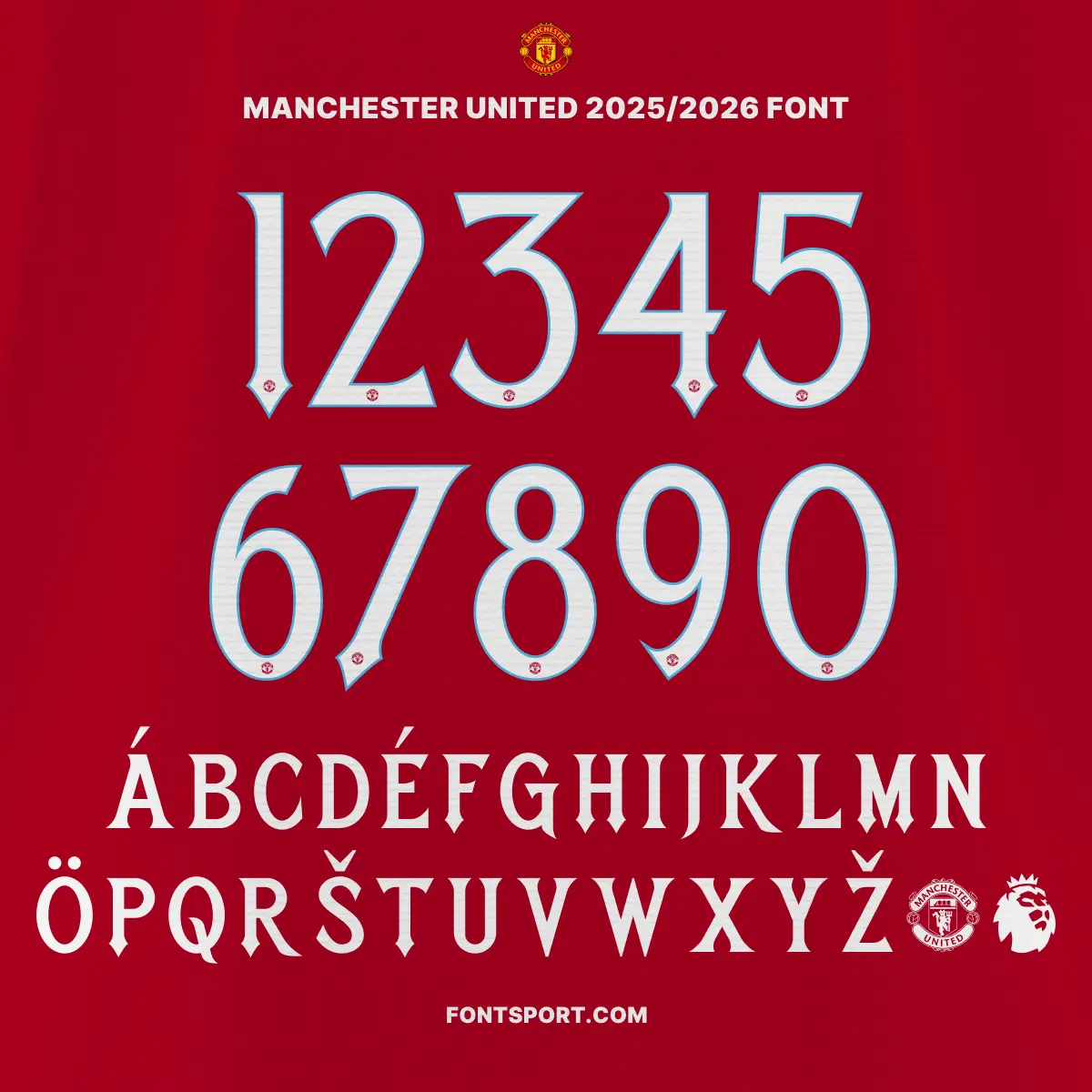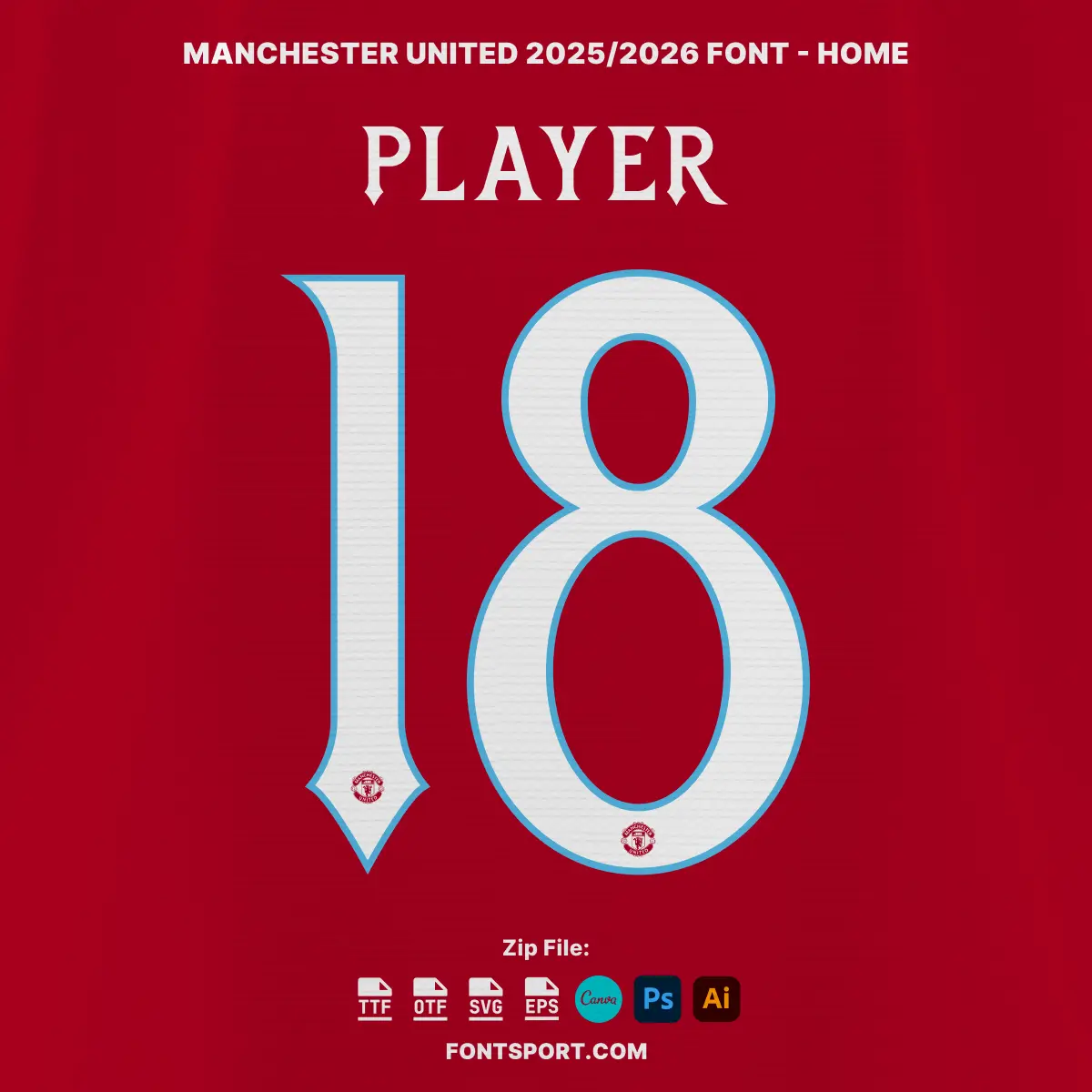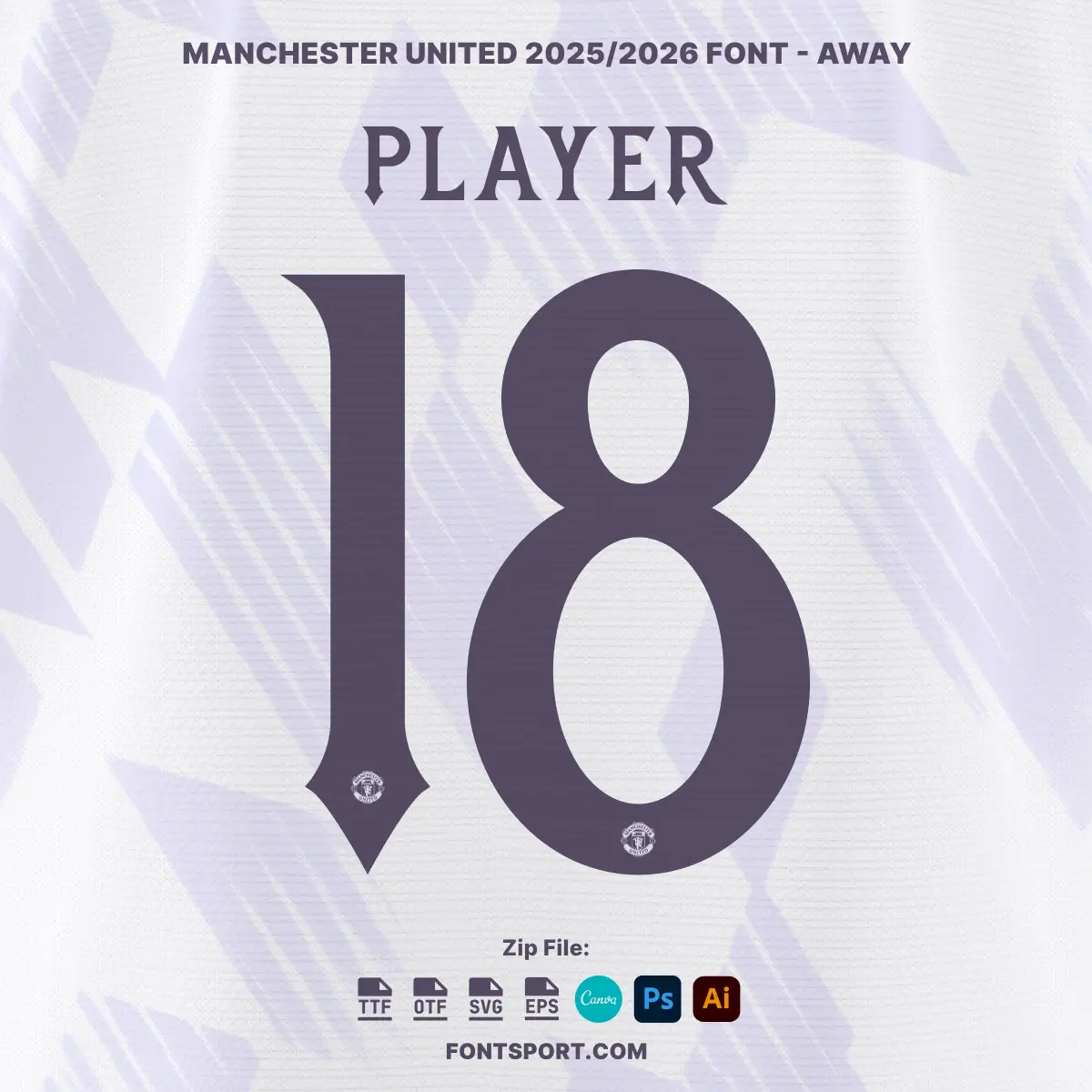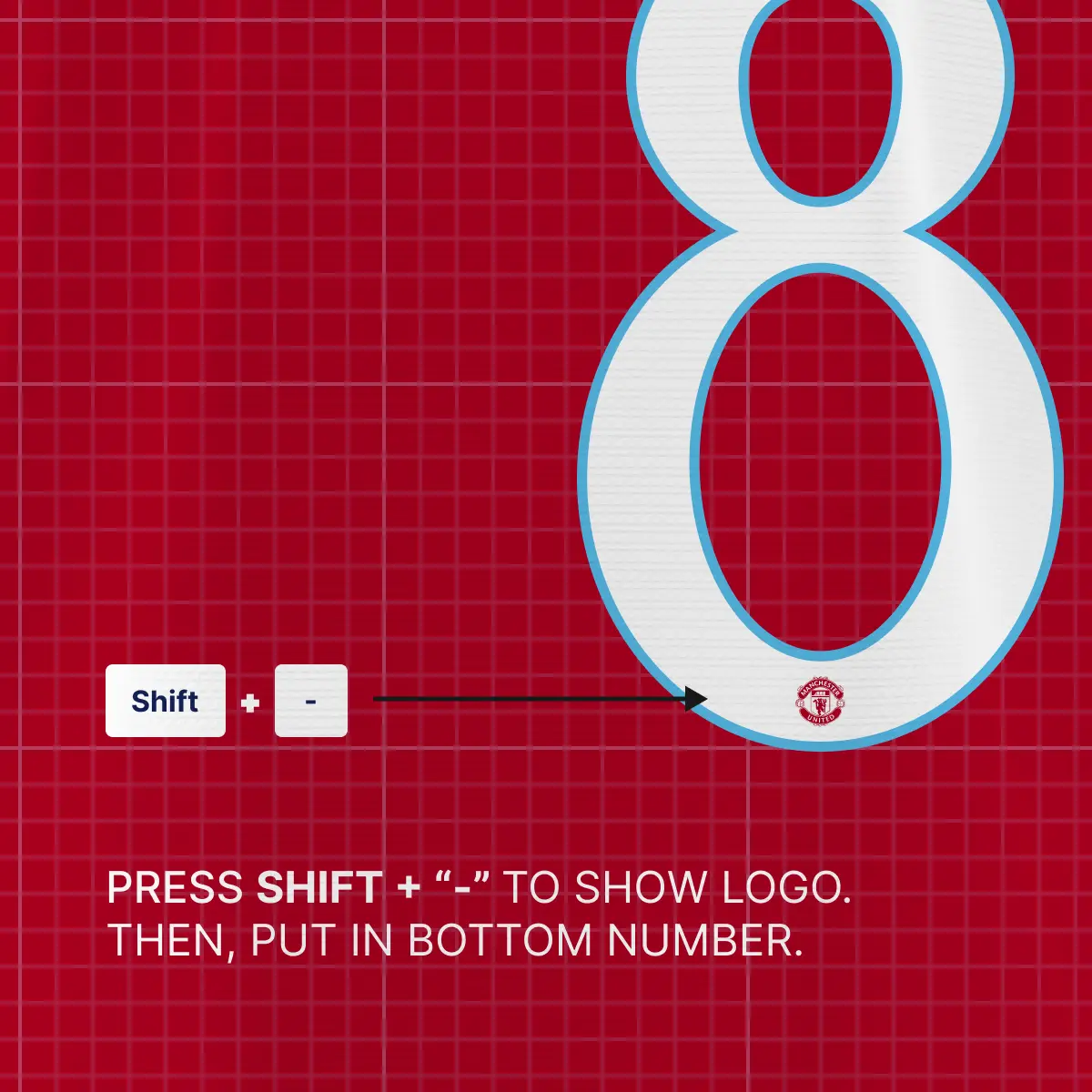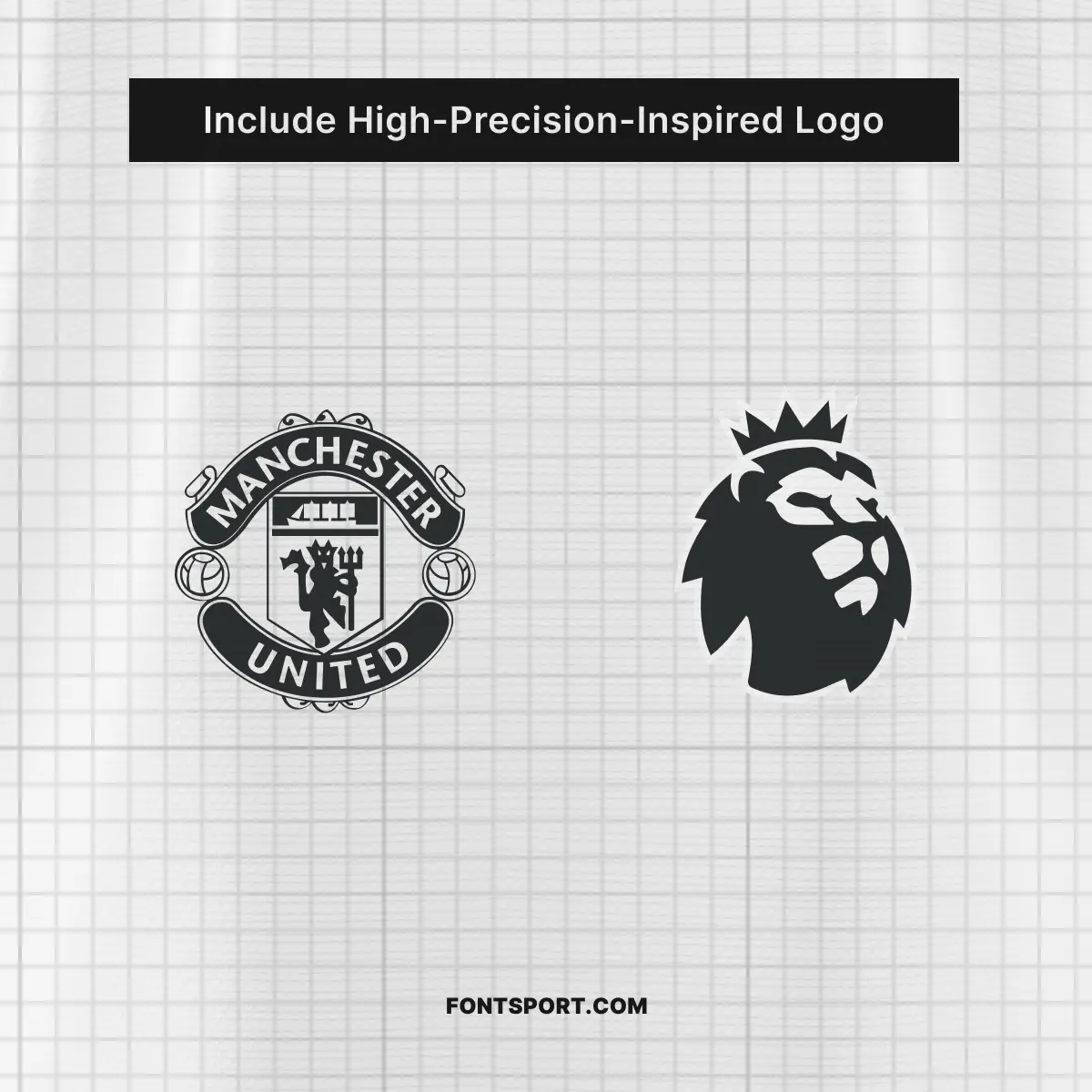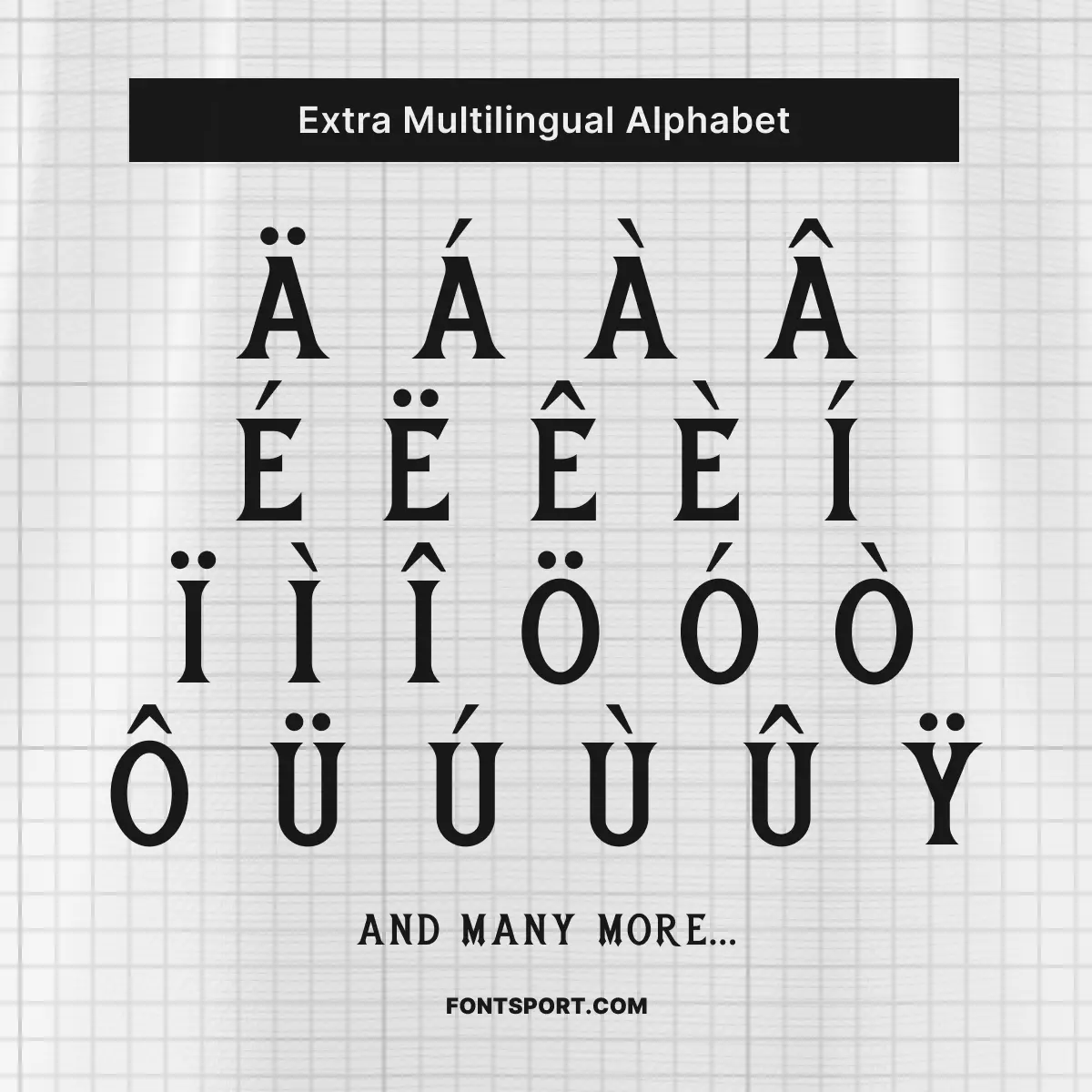
Manchester United Font Kit 2025/2026
The Manchester United Font Kit 2025/2026 is a bold and contemporary typeface designed to capture the spirit of one of the most iconic football clubs in the Premier League. Inspired by the typography seen on Manchester United’s official kits for the 2025/2026 season, this font kit is perfect for fans, designers, and creators who want to infuse their work with the energy of Old Trafford.
This high-quality font pack includes everything you need to design custom jersey mockups, fan posters, wrapping papers, matchday flyers, and more. The typeface combines modern sharpness with bold sports styling—making it instantly recognizable and versatile for both print and digital use.
Every purchase includes OTF and TTF formats for maximum compatibility, plus SVG and fully editable vector files to ensure scalability and design flexibility. The set also features uppercase A–Z letters, numbers 0–9, Premier League’s lion logo, and Manchester United’s official crest—all integrated as glyphs that can be typed directly using your keyboard (no need for external logos).
Bonus multilingual support ensures your projects can speak to global audiences with accented characters for various Latin-based alphabets.
Whether you’re a designer working on football merchandise or a Manchester United fan creating matchday content, this font kit brings professional polish to your creative efforts.
🔴 Inspired by the official Manchester United 2025/2026 typeface used in Premier League and Champion League matches.
Manchester United 2025/2026 Font Kit – Display of full A-Z uppercase letters and 0-9 numbers in Premier League style, featuring official Manchester United and EPL logos